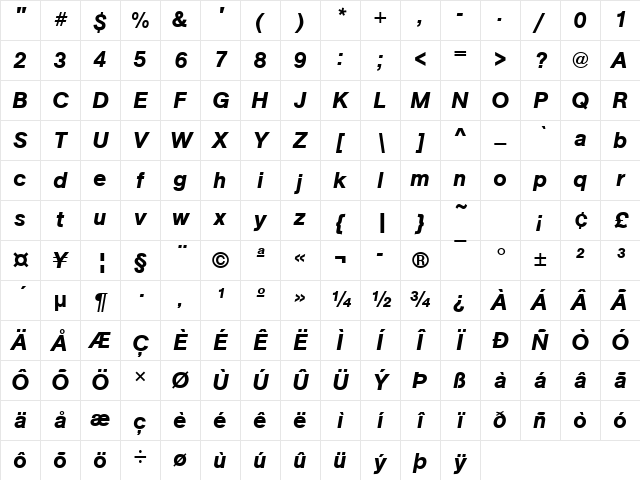
URWAccidaliaBucTMed Italic
Design Context for URWAccidaliaBucTMed
URWAccidaliaBucTMed is a composed and adaptable typeface that performs quietly and consistently across a wide range of design contexts. The slanted form adds forward momentum and visual energy.
Pro Tip: Use URWAccidaliaBucTMed for emphasis, pull quotes, and subheadings where its slanted energy can add rhythm to the layout.